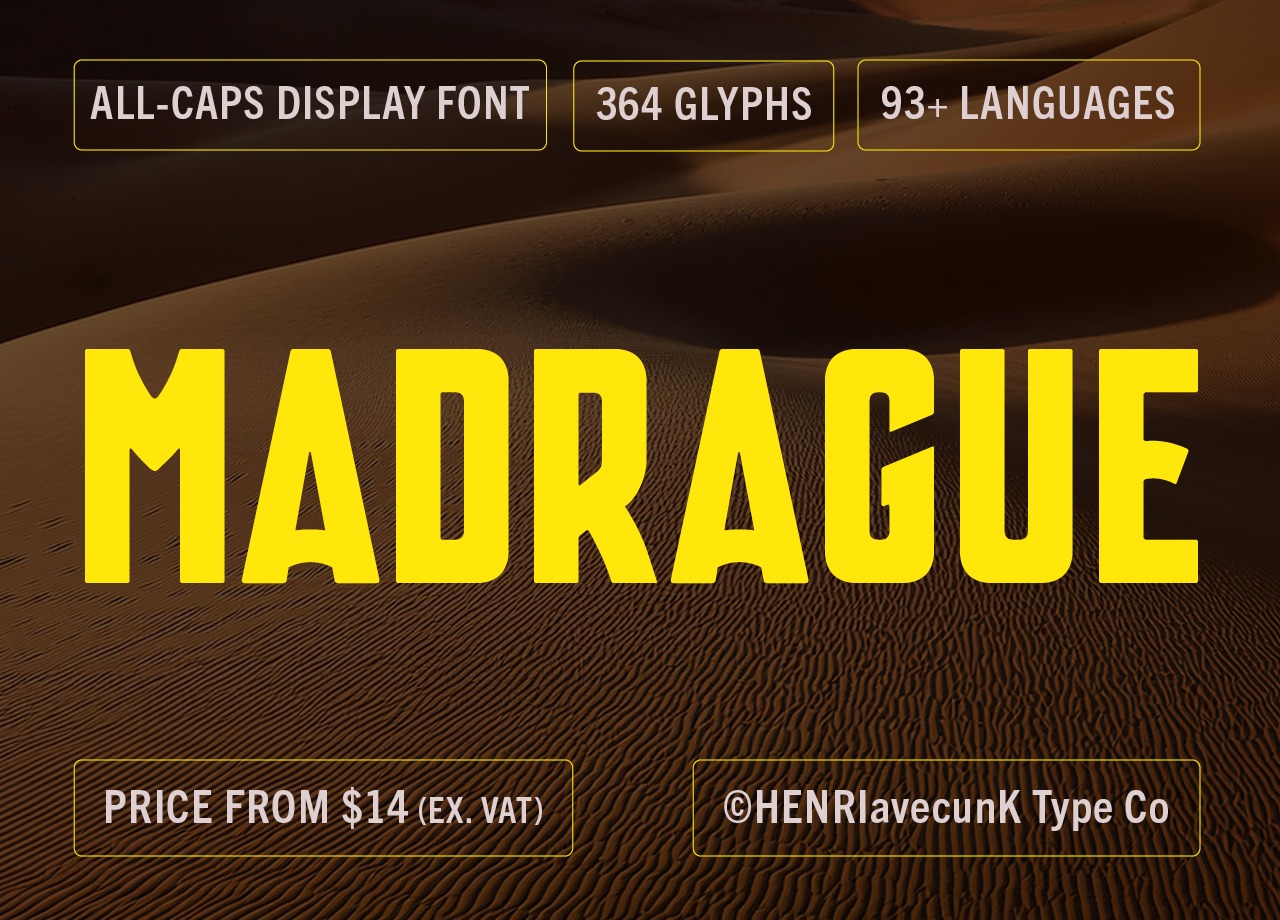
Madrague – Modern Sans Serif Font
Madrague – Modern Sans Serif Font is a versatile font designed to adapt beautifully across different design styles, offering dependable readability and balance. Madrague is built to make a strong impact. Bold, powerful, and crafted exclusively in uppercase, it commands attention at first glance. Its character balances the raw charm of the past with a clean, modern twist—exactly where rustic charm meets contemporary design. The result is unmistakably unique.
Designed to stand strong, it’s perfect for posters, signage, and logos where visibility and personality matter. Whether you want to evoke heritage, confidence, or authority, this font delivers a striking presence that won’t be ignored.
Among the extra features are alternativ 3, K and most notably S. And double sets of arrows.